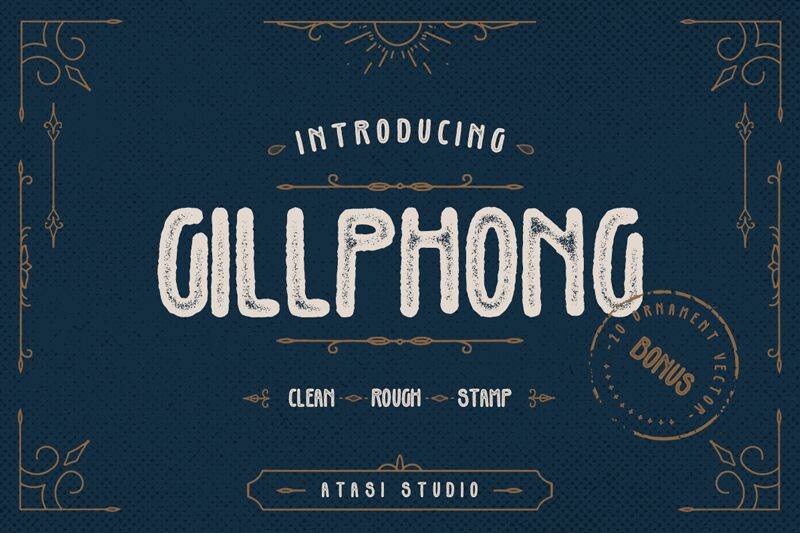
Gillphong-Regular
Gillphong is a stunning handwritten font created by the talented designer Rizka Prayuda. Its condensed width adds a touch of elegance to any project, making it perfect for invitations, greeting cards, and wedding designs. The semi-bold font style provides excellent readability while maintaining an artistic feel. Gillphong's unique letterforms give your designs an authentic handcrafted vibe that stands out from the crowd. Use it for logos, branding materials, or packaging designs to add personality and character to your projects. Gillphong is a versatile font that can elevate any design project with its artistic flair.